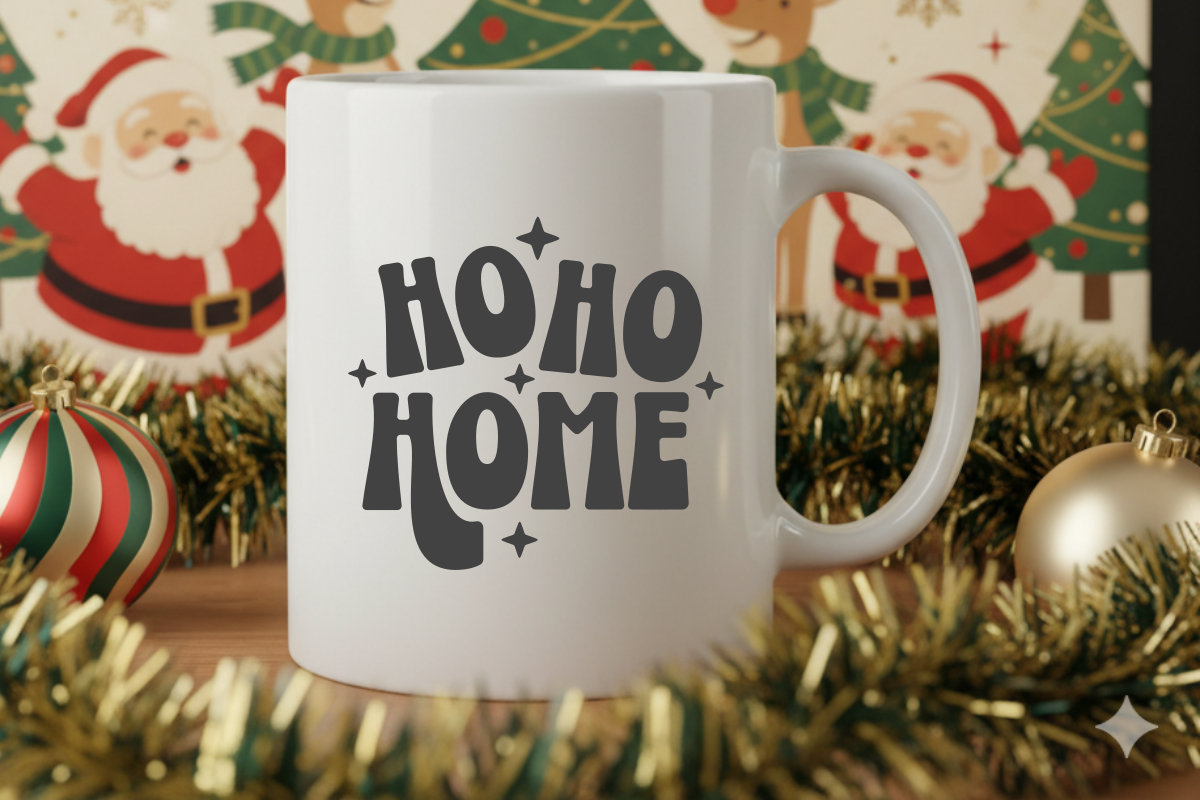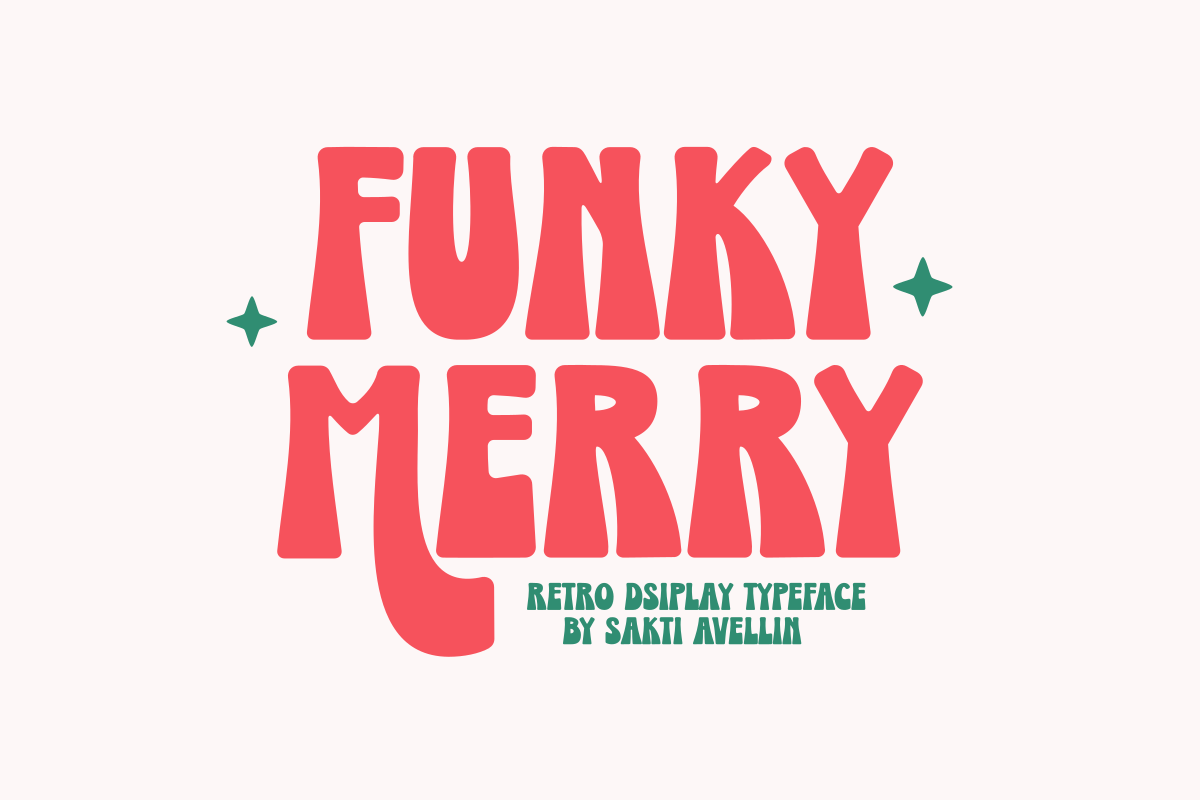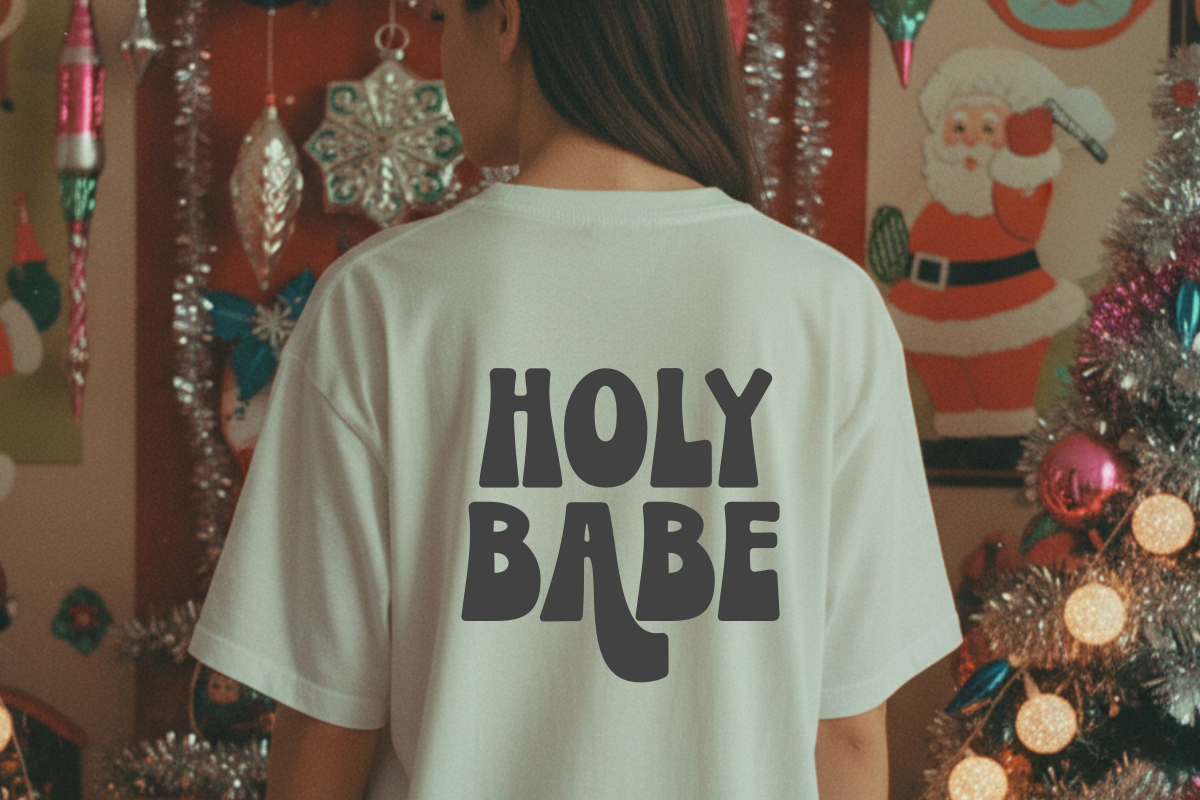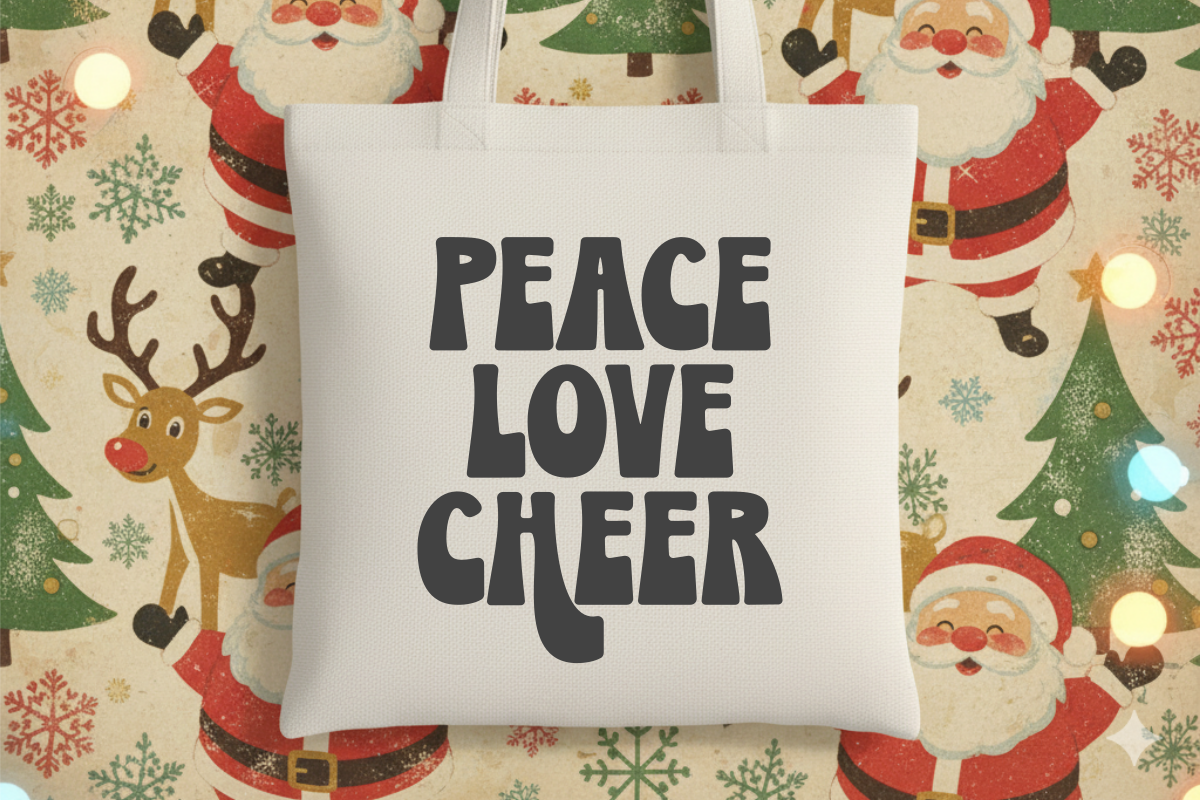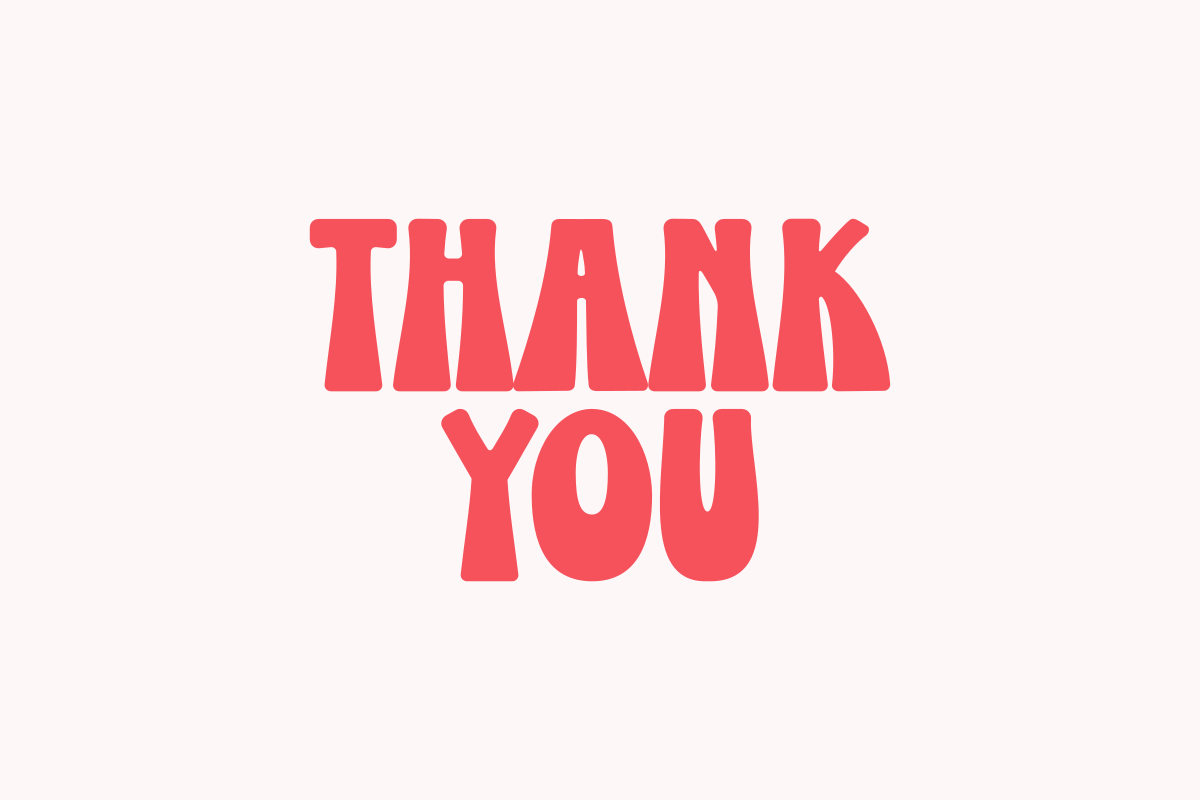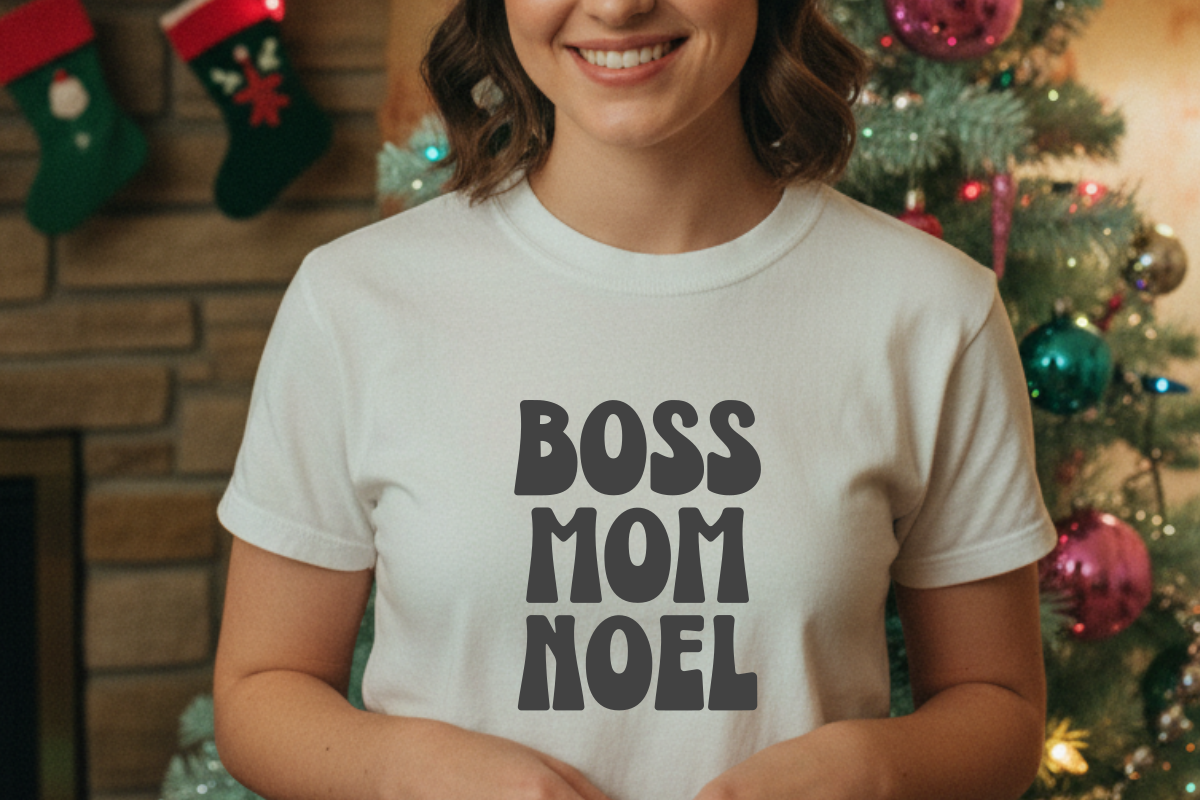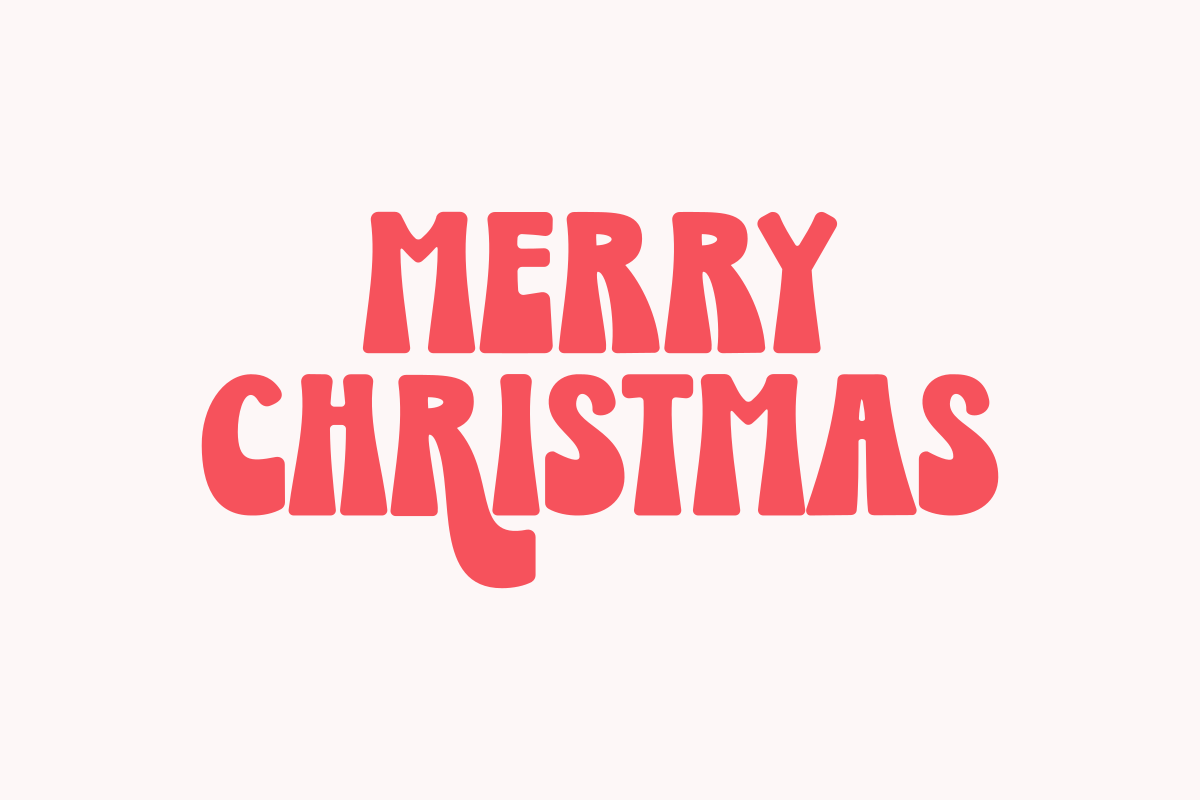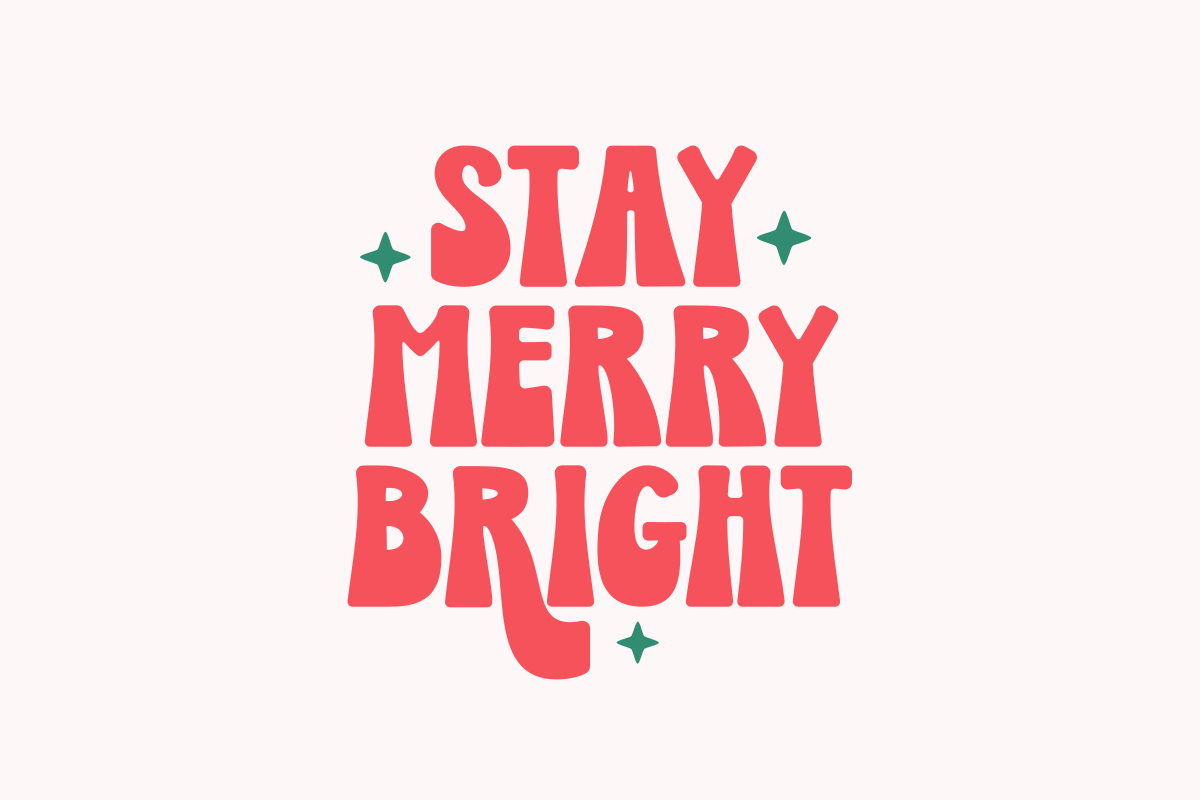
Funky Merry - Retro Display Typeface
Funky Merry is a bold, soulful, and high-impact retro display typeface designed by Sakti Avellin to bring a nostalgic 1970s energy to your creative projects. This groovy vintage font features tall, wavy letterforms with a rhythmic, psychedelic bounce, making it an essential choice for retro branding, funky t-shirt prints, vintage posters, and eye-catching social media graphics. Its unique, tall silhouette ensures it stands out as a powerful decorative typeface for headlines and product packaging, perfect for designers seeking a mix of disco-era charm and modern aesthetic funk. Elevate your designs with the vibrant and nostalgic spirit of Funky Merry!